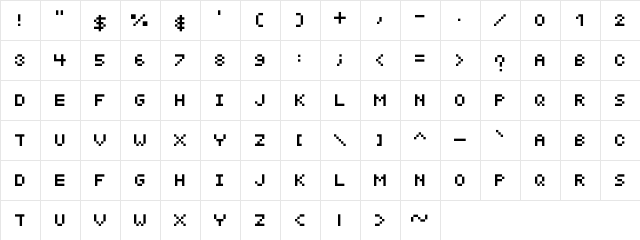
MicroTym Regular
Design Context for MicroTym Typeface
MicroTym takes a measured approach to typography — its balanced proportions and neutral character make it a reliable workhorse for both digital and print work.